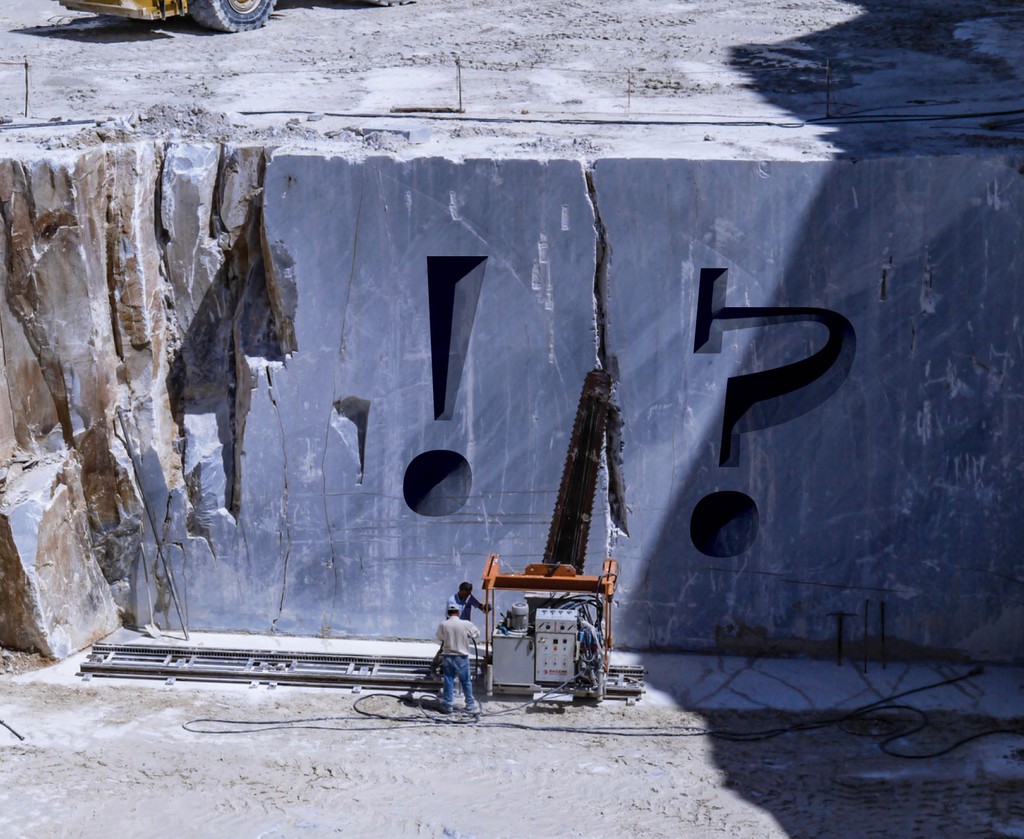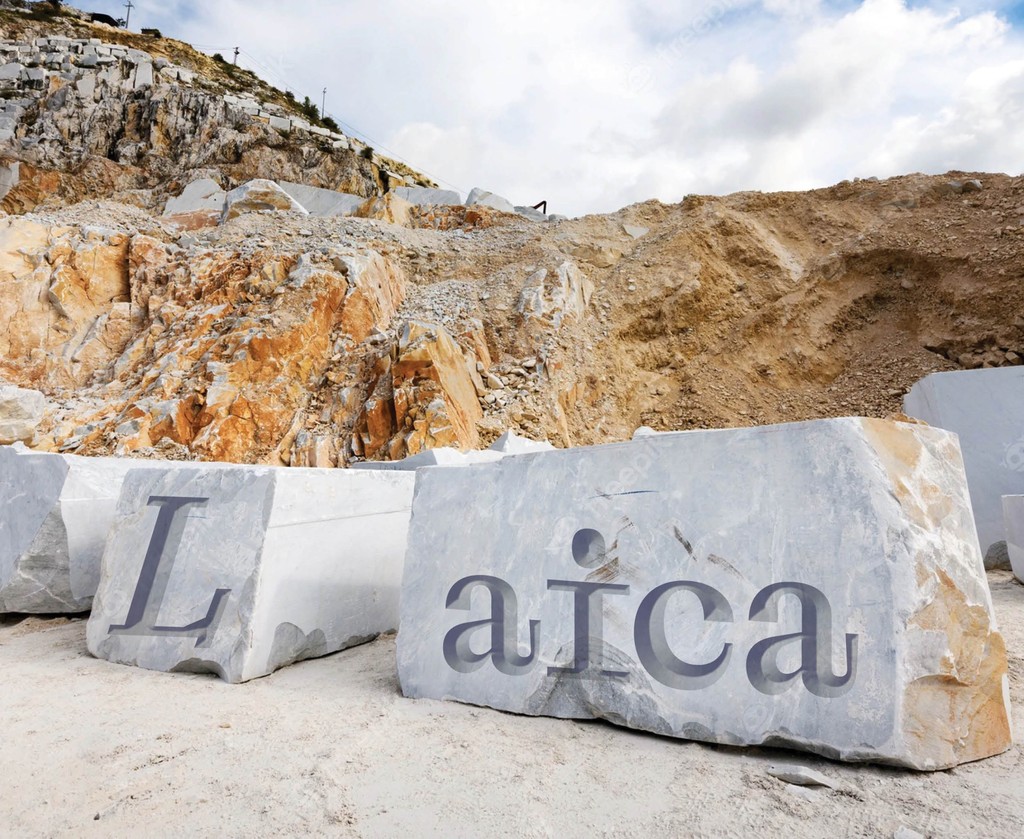
Laica
Features
Alternate 6 & 9
Oldstyle Figures
Slashed Zero
About Laica
ABC Laica is the result of a cruel methodology: A forced collaboration between the broad nib pen and the pointed nib pen, two common but very different drawing tools. Designer Alessio D’Ellena sketched early versions of the typeface by hand during his spare time as a student at the Royal Academy of Art in The Hague, which usually meant while slouching in uncomfortable armchairs at the airport or on rickety trams winding through the streets of Rome. ABC Laica’s patchwork of shapes are a playful retort to the tradition of calligraphy, reflecting today’s reality of cheap flights, constant hustle, and remote work.
ABC Laica features chiseled transitions by default, that generate a pleasing visual rhythm and optical balance for text. And upon activating a Stylistic Set, ABC Laica can sport straight transitions at its joints and evoke a more simplified and elegant tone. Both the monospaced and proportional sub families come in Light, Book, Regular, Medium, and Bold weights with corresponding Italics.
Procès Contre les Animaux. Design by Axel Pelletanche Thévenart
Gullmunn Spritfabrikk. Design by OlssønBarbieri